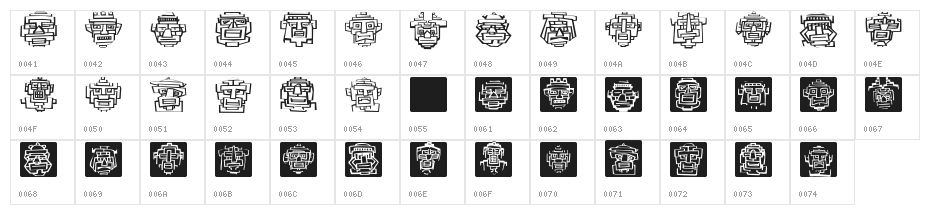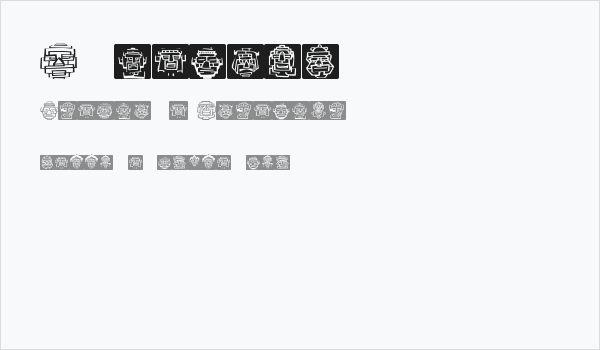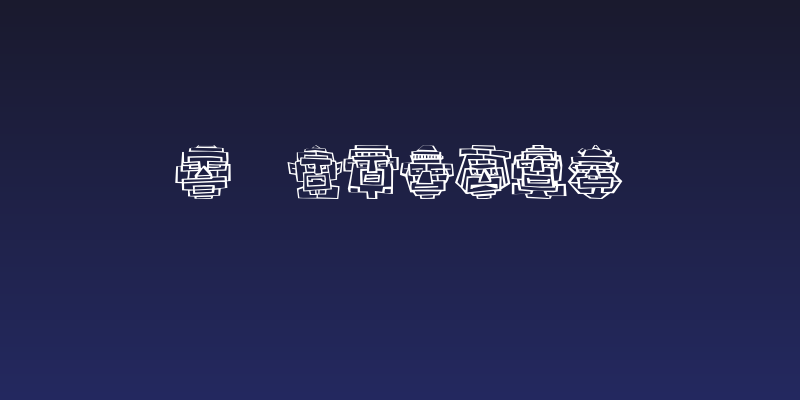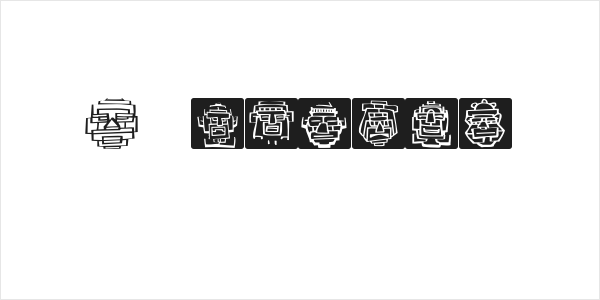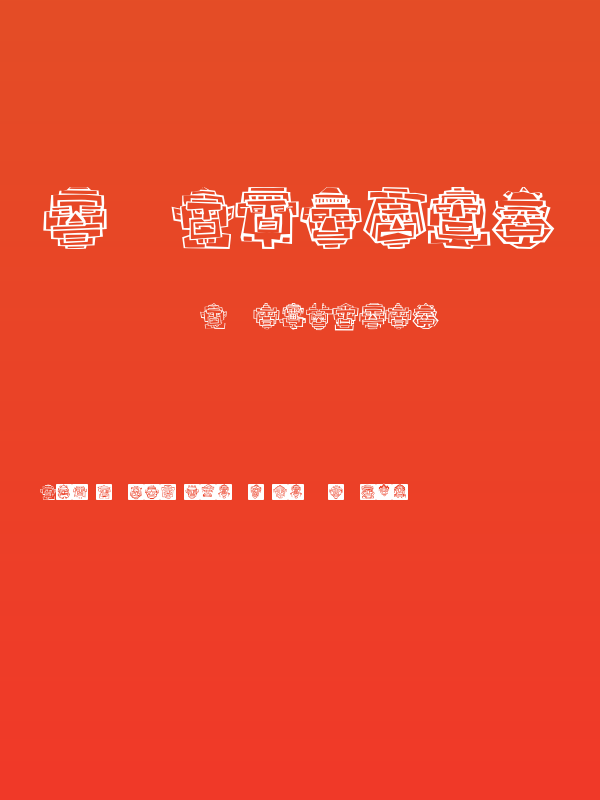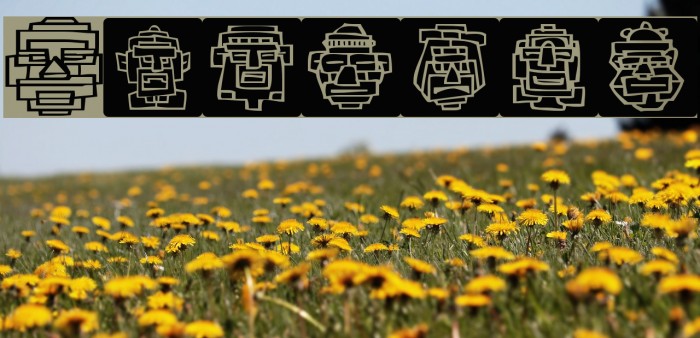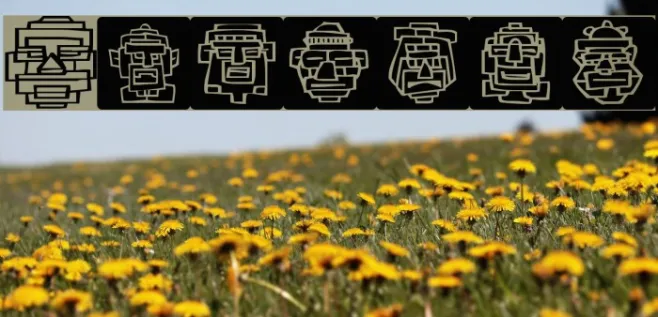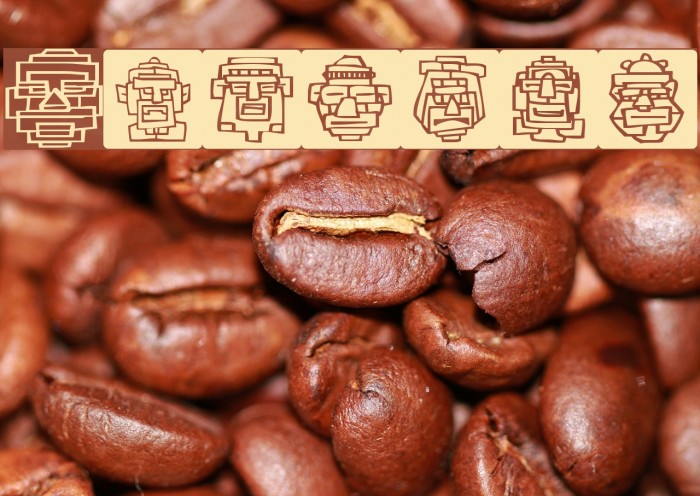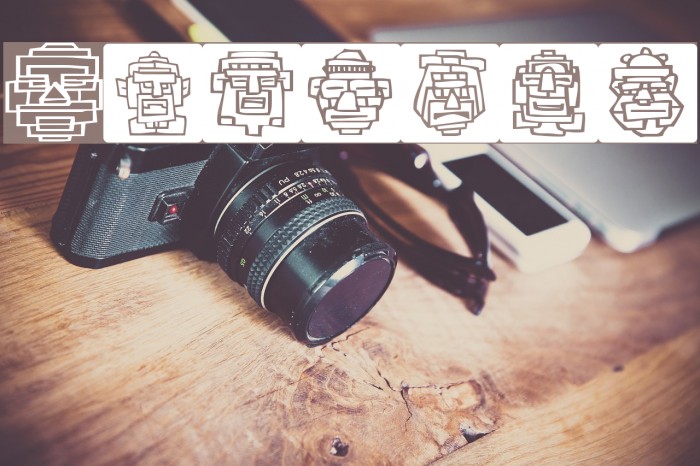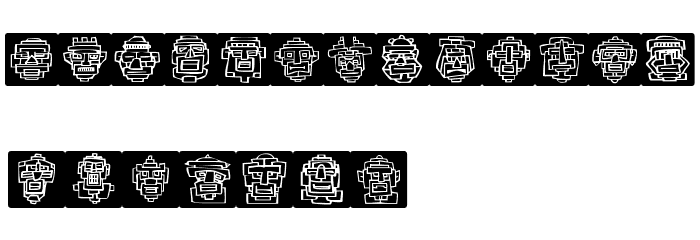
Aztecish Font
Aztecish Description
This font features a unique and intricate design inspired by Aztec motifs. Each character is crafted to resemble a stylized face, incorporating geometric shapes and patterns that evoke ancient stone carvings. The bold lines and angular forms give it a distinct, decorative appearance, making it stand out as a display font. The characters are uniformly sized, maintaining a consistent visual rhythm across the typeface. This font is not suited for body text due to its complex design but excels in creating a strong visual impact in headlines or artistic projects.
| Proposed Projects | Ideal for cultural projects, themed event posters, artistic designs, and branding that seeks an ancient or tribal aesthetic. |